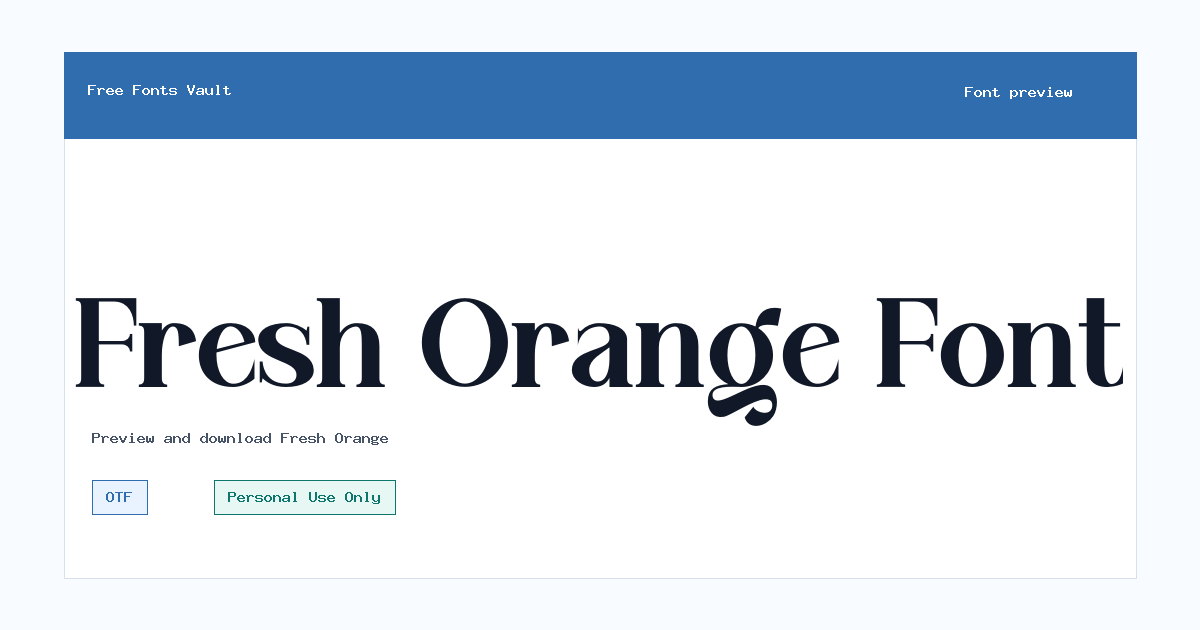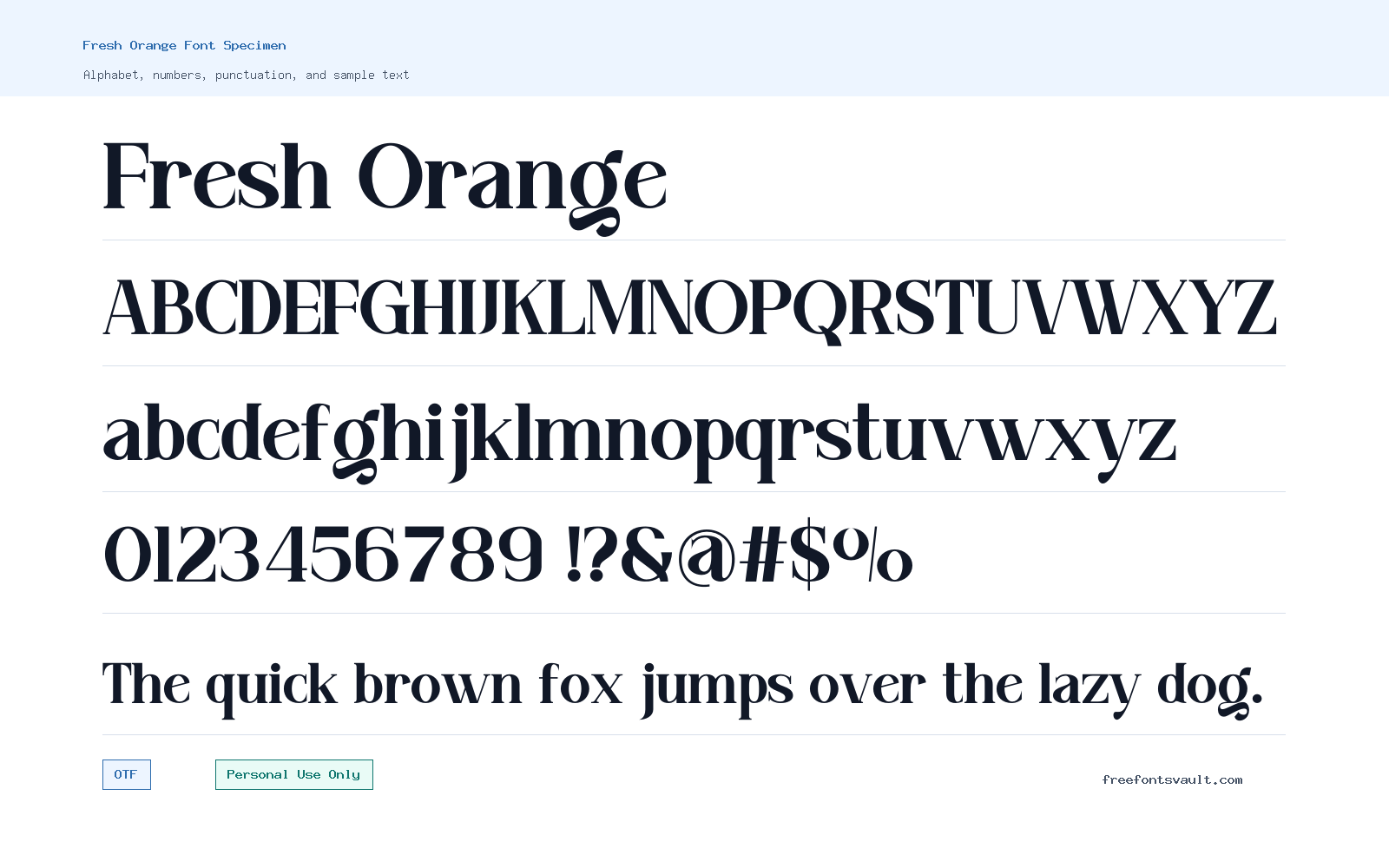
Fresh Orange
Fresh Orange is a serif font family by Masyafi Studio with a regular OTF style for personal-use projects. It is a good choice to preview when you need a display serif with a clean, decorative feel for short pieces of text.
About Fresh Orange Font
Fresh Orange works best as a display font rather than a long-reading text face. The available regular style gives you a straightforward starting point for testing titles, names, quote graphics, packaging concepts, invitations, social posts, and poster headings. Because only one regular OTF file is listed, it is most useful when your design does not need a full range of weights or italic styles. Try it at larger sizes first, where the serif details and letter shapes can be seen clearly.
For logo work, Fresh Orange can be useful in early personal concepts, moodboards, and non-commercial mockups, but the license needs attention before any client or business use. Test your exact wording in the preview tool before downloading, especially if the design uses all caps, tight spacing, or very short brand-style text. Display serifs can look strong in headings but may need extra letter spacing or manual kerning in logos, badges, and poster layouts. If you plan to use it on a website mockup, check how the OTF renders in your design software and pair it with a simpler sans serif for menus, captions, and body copy.
Fresh Orange should be handled as a personality font: use it where the typography is meant to be noticed, not where the reader needs to move through long paragraphs quickly. A simple layout will usually serve it better than a busy one. Pair it with neutral fonts, plain backgrounds, and restrained color so the lettering can do the visual work. If the font feels too decorative at small sizes, keep it for titles and use a more readable companion font for supporting text.
- Serif display style suited to headings, short titles, and visual mockups.
- Single-style family, making it simple to test in preview tools and design apps.
- Best used at medium to large sizes where the letter details remain clear.
- Poster titles and event graphics for personal projects
- Invitation headings, quote cards, and social media designs
- Logo drafts, branding moodboards, and client concept previews
- Packaging mockups and label concepts that use short text
- Website hero mockups paired with a clean sans serif for body text